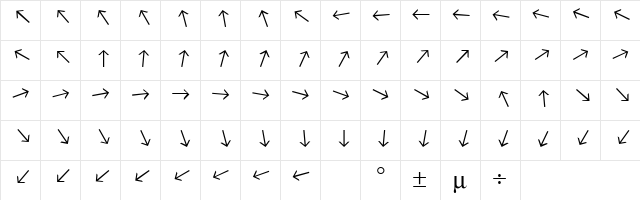
ArrowFont Regular
Design Context for ArrowFont Typeface
ArrowFont is a composed and adaptable typeface that performs quietly and consistently across a wide range of design contexts.